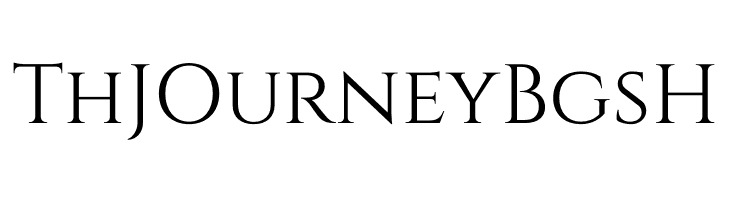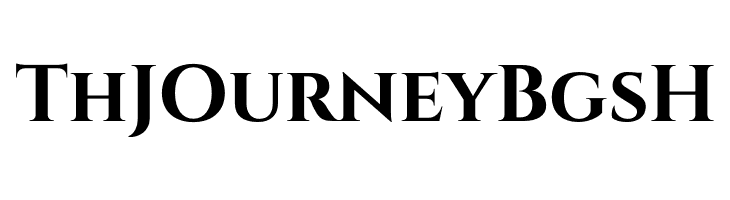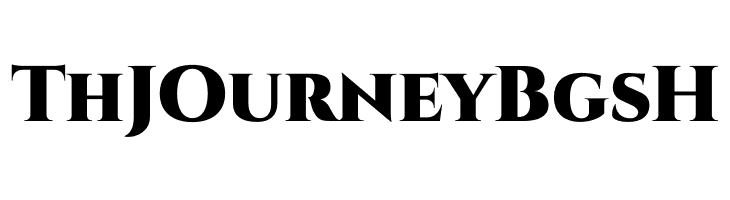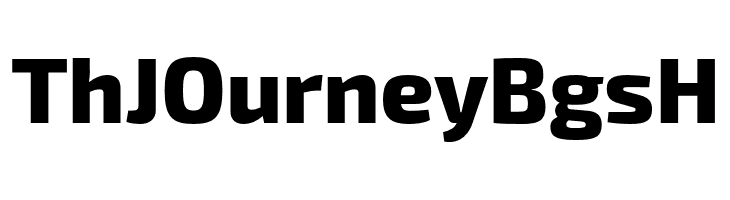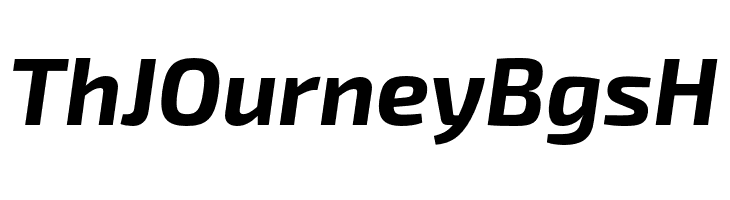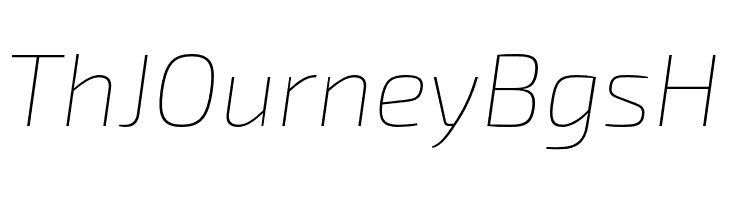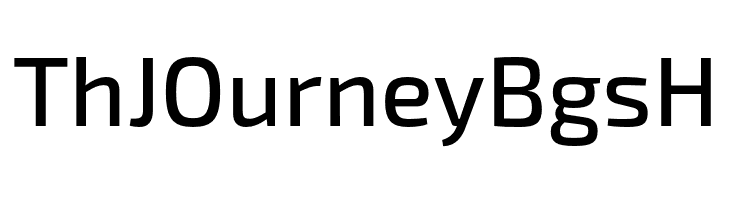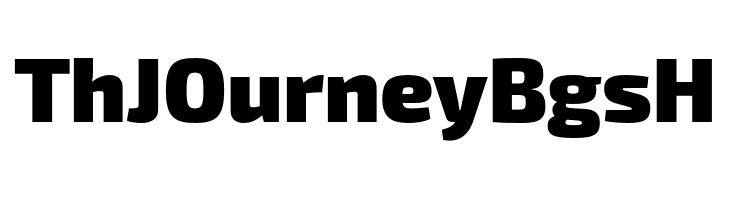
A classic serif font with high contrast and elegant details.
A bold, elegant serif font with a classic Roman influence.
A bold serif font with strong strokes and elegant curves, exuding a classic Roman influence.
A bold, modern typeface with a geometric structure and slightly condensed appearance.
A modern, bold, and italicized font with a sleek and dynamic appearance.
A sleek, thin, and italicized modern font with a minimalist design.
A modern, geometric sans-serif font with a clean and minimalistic design.
A modern, geometric sans-serif font with uniform strokes and excellent readability.
A modern, italic sans-serif font with a sleek and dynamic style.
A bold, modern font with a strong, condensed style and high contrast.